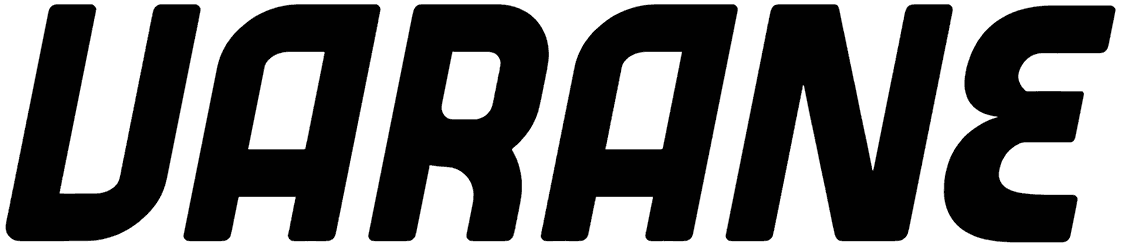
Varane Font
Are you working on a sci-fi short film and want to design an exciting poster? Varane is the thing that can attract the audience towards you. This techno font has a rugged yet casual look that’s perfect for adding a sense of tech excitement to your writing.
With this logo font, you won’t need new options for a while, and you can beautifully design the architecture of your writings based on the ideas in your mind.